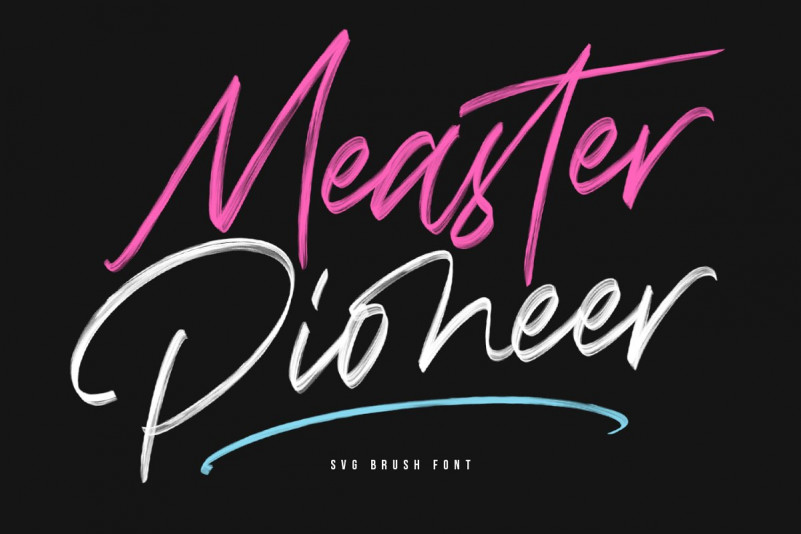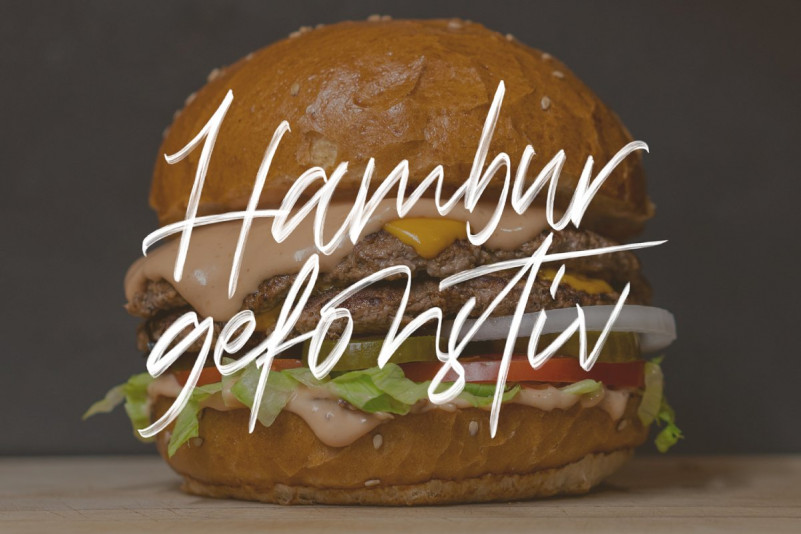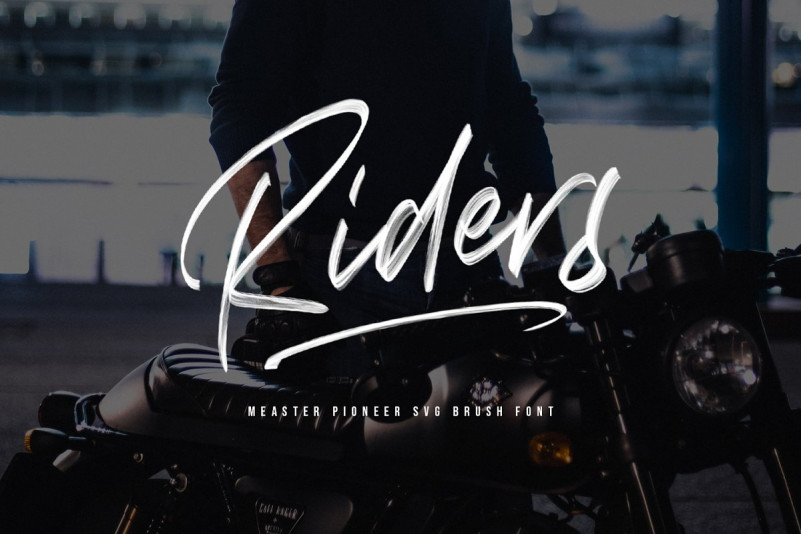
Measter Pioneer Font
Give your designs an authentic brush handcrafted feel. “Measter Pioneer” is perfectly suited to signature, stationery, logo, typography quotes, magazine or book cover, website header, flyer, clothing, branding, packaging design and more.